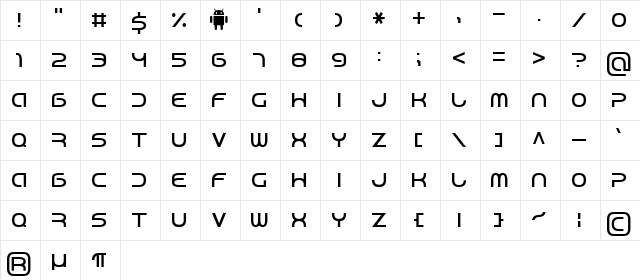
Android 7 Regular
Foundry: Style-7
Designer: Sizenko Alexander
Design Context for Android 7
Android 7 is a composed and adaptable typeface that performs quietly and consistently across a wide range of design contexts.